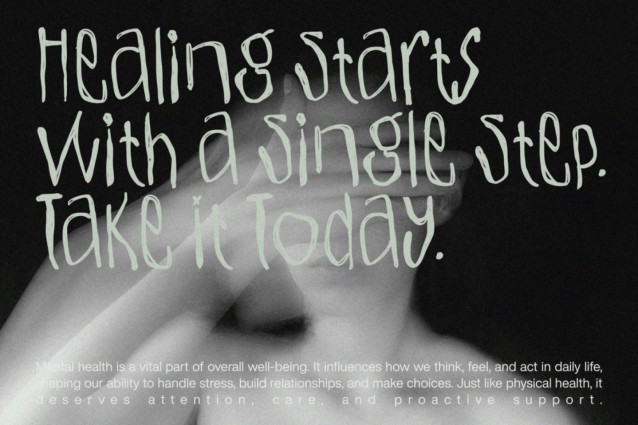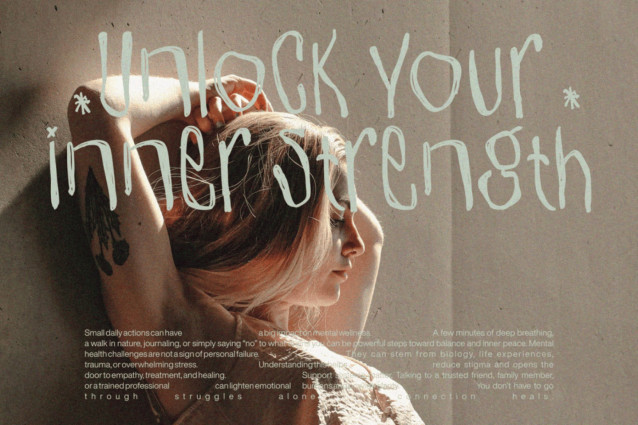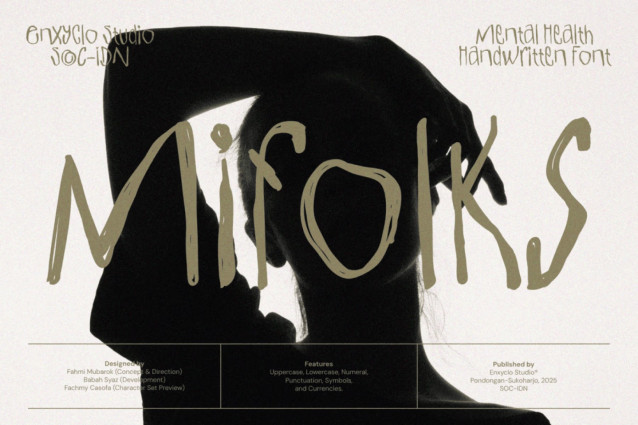
Mifolks Font
Mifolks Font is a deeply expressive, handwritten font with a deliberately rough and organic texture, designed to resonate with the raw, authentic emotions tied to mental health, mindfulness, and spiritual growth. Its imperfect, brush-like strokes mirror the human journey — full of texture, vulnerability, and strength — making it the ideal typographic companion for projects that seek to foster connection, healing, and self-awareness.
More than just a font, MIFOLKS is a visual embrace for the mind and spirit. Its rugged yet graceful letterforms invite contemplation, reflection, and emotional honesty — perfect for headlines, social media quotes, and therapeutic branding materials. With its comprehensive character set including uppercase, lowercase, punctuation, symbols, and currencies, MIFOLKS is built to support global mental health initiatives, ensuring your message of compassion and resilience reaches every corner of the world.